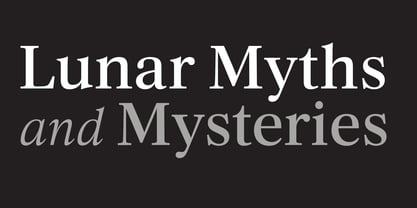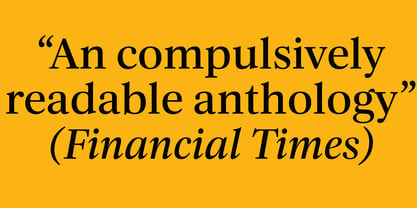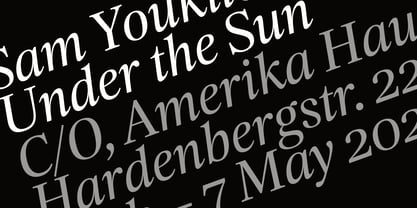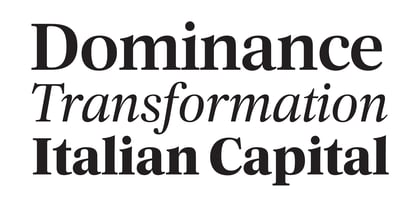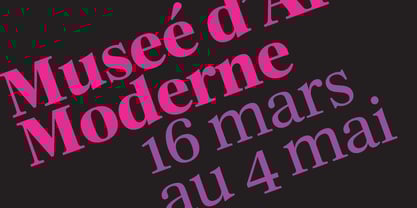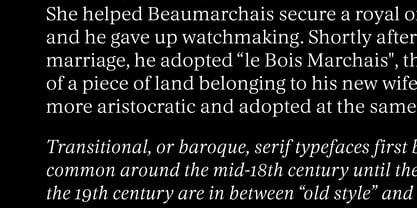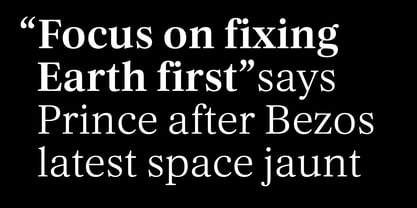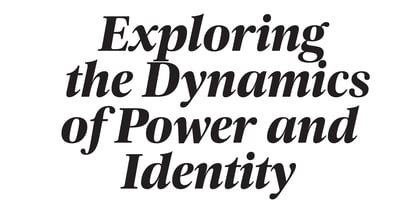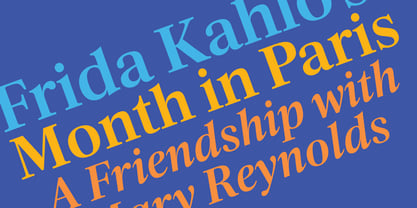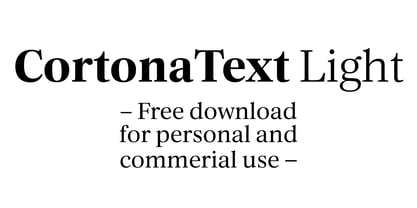
Cortona Text
by Hoftype
The Cortona Text Font Family was designed by Dieter Hofrichter and published by Hoftype. Cortona Text contains 18 styles and family package options.
The Cortona family represents a new approach to the category of transitional typefaces as Times, Concorde, Baskerville, Romain du Roi, from a contemporay focus.
Cortona and Cortona Text unite excellent reading quality with unagitated, classic elegance.
The Cortona family consists of 18 styles, provides many features which allow its application for ambitious typography. It comes in OpenType format with extended language support. All weights contain small caps, ligatures, superior characters, proportional lining figures, tabular lining figures, proportional old style figures, lining old style figures, matching currency symbols, fraction- and scientific numerals, matching arrows and some alternate characters.
German designer Dieter Hofrichter started his foundry in 2010. Since then, he has remained focused on developing text fonts that integrate the rich history and tradition of typography with contemporary styles. Based in Munich, his first typeface on MyFonts was Impara, a sans serif with lively stroke ductus and distinct humanistic characteristics that is a representation of linear coolness and classic elegance. Since his debut, he has continued to produce beautiful, high quality serif faces. Capita, one of the foundry’s best sellers, is a self-dominated face with a fresh style that avoids the harshness of many slab serifs. Dieter has also seen success with one of his most recent designs, Mangan, a text face that combines classical rationality with contemporary design. “One of our intentions is to utilize the knowledge of the history of type to create contemporary types,” Dieter says. “Style consciousness and many years of experience in type design are our qualifications for producing functional and usable types of high quality.”